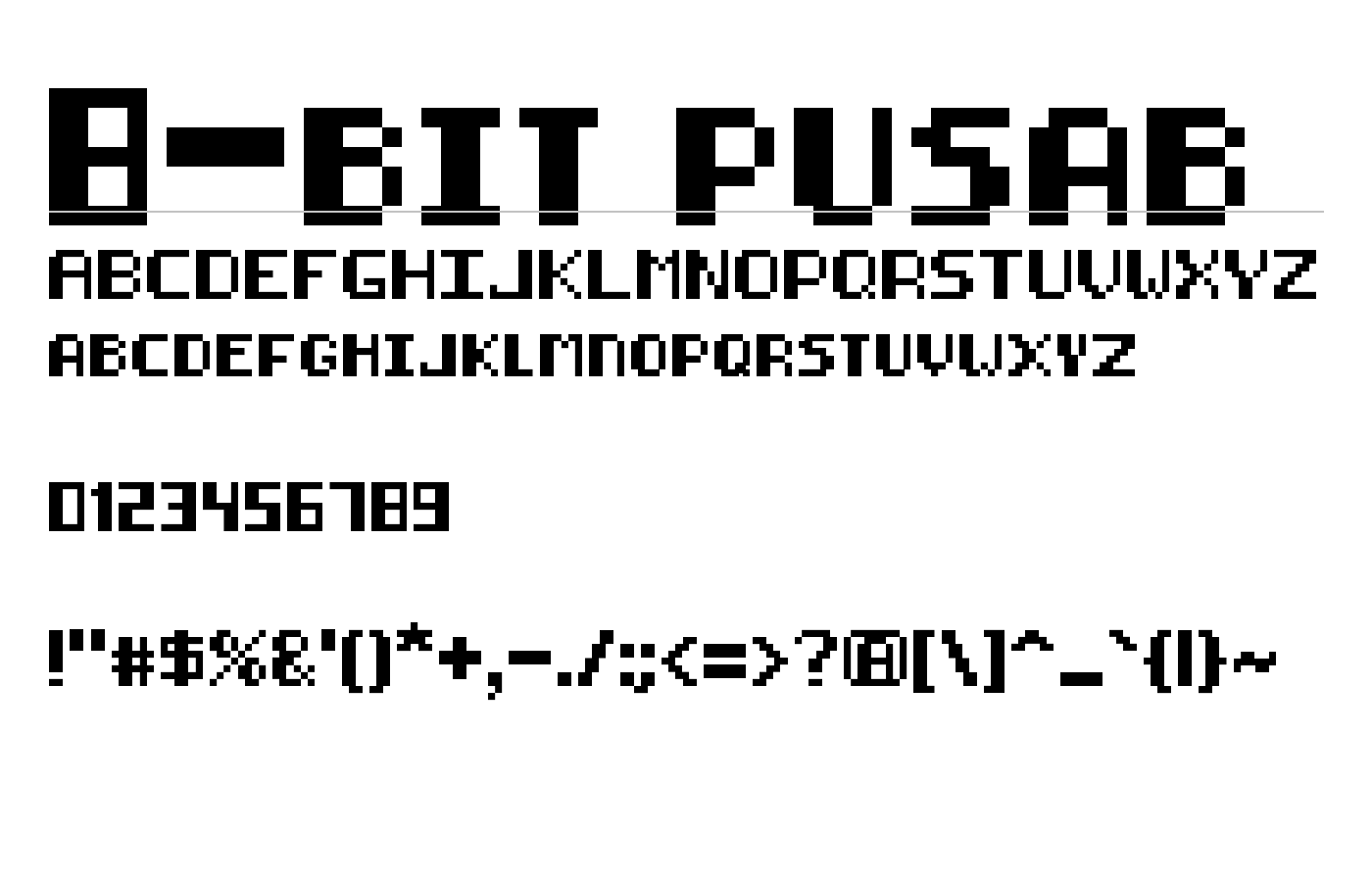
8-bit Pusbab is a bold, pixelated sans serif font that captures a retro, digital video game aesthetic with its blocky, monospaced letterforms and sharp edges. Its uniform stroke width and square shapes give it a tech-inspired, nostalgic feel, making it ideal for use in gaming, tech branding, or digital-themed design projects where a vintage 8-bit look is desired. This font works best for headlines, logos, and playful displays rather than body text due to its distinctive, eye-catching style.
8-bit pusab Font
About 8-bit pusab Font
| Font family | 8-bit pusab Font |
| Designer | lSPl |